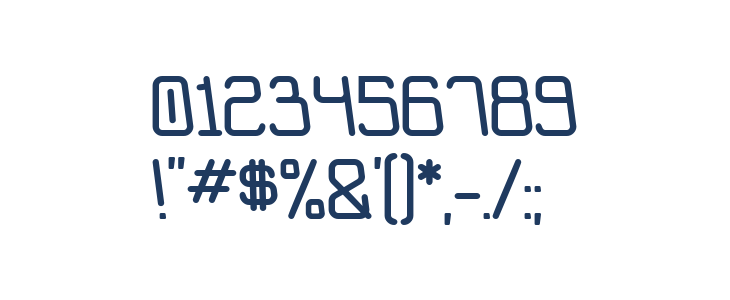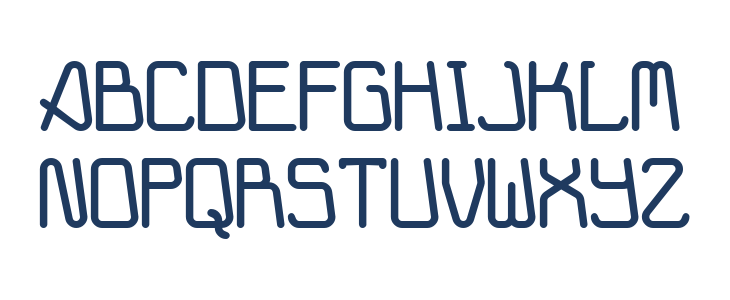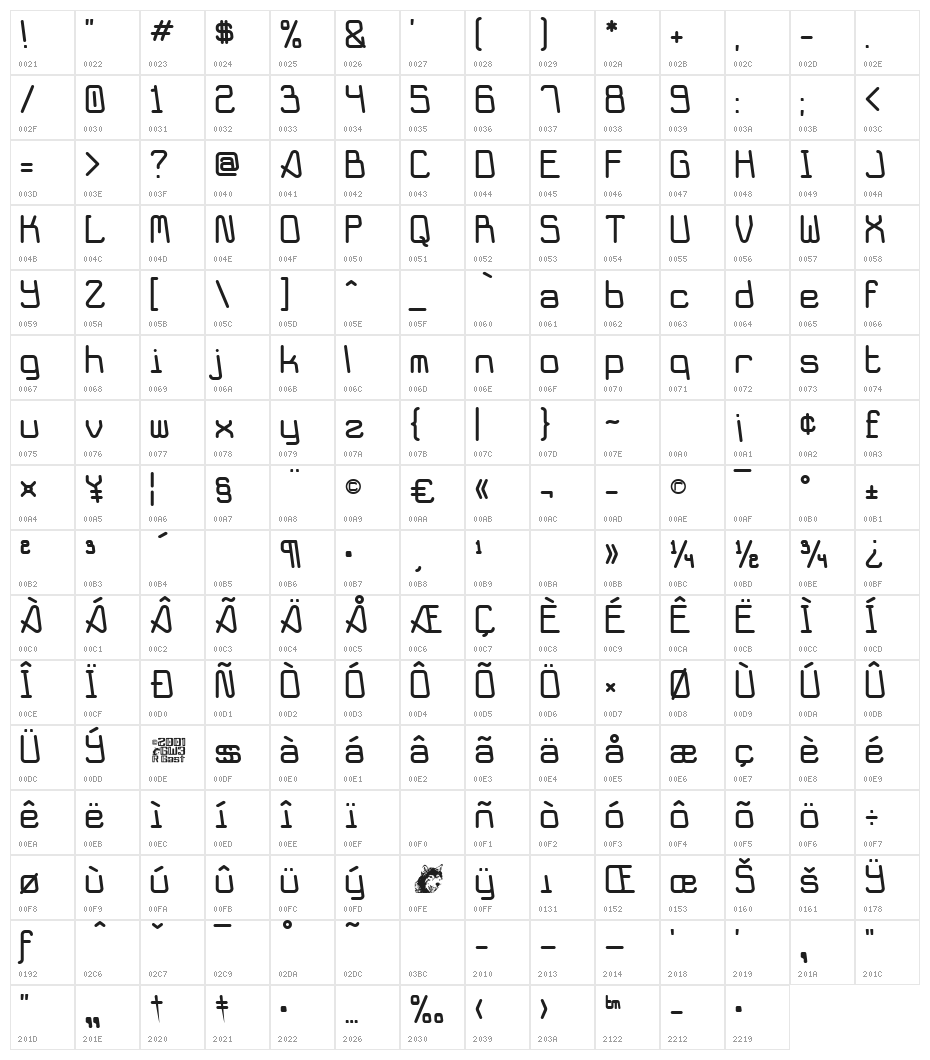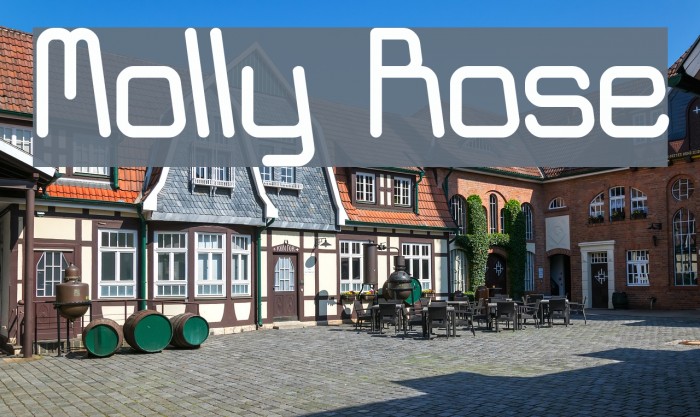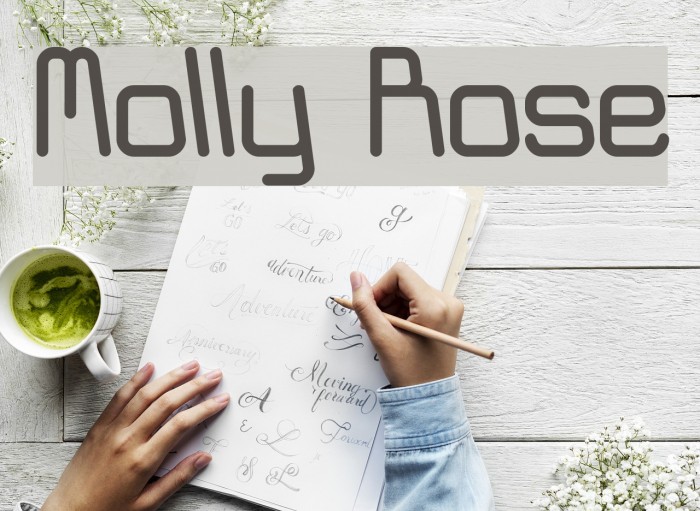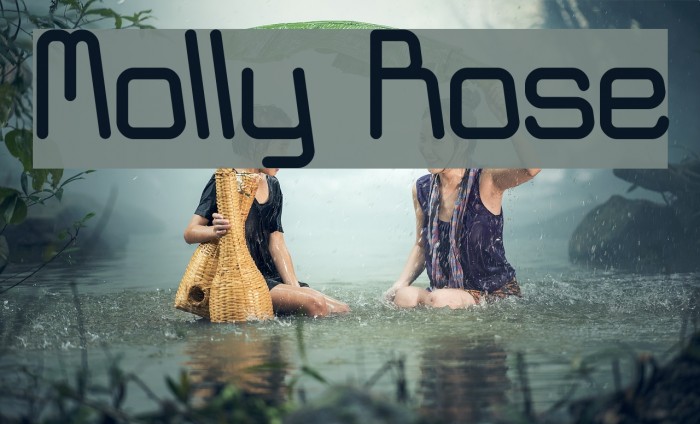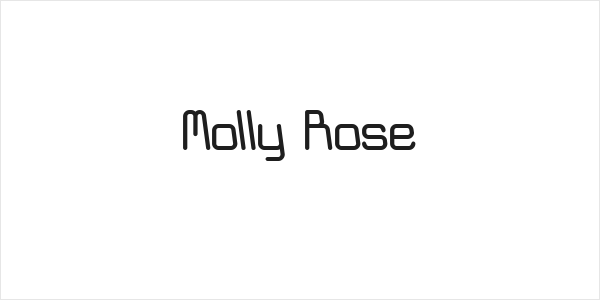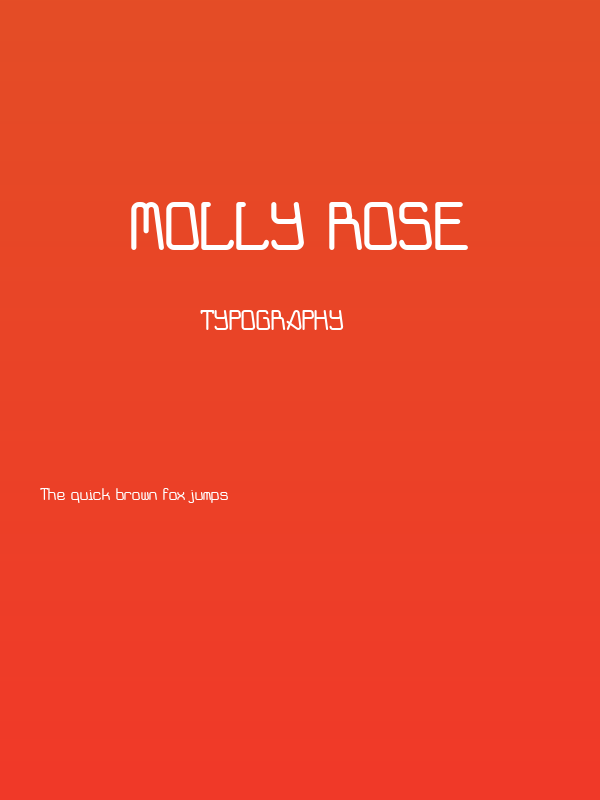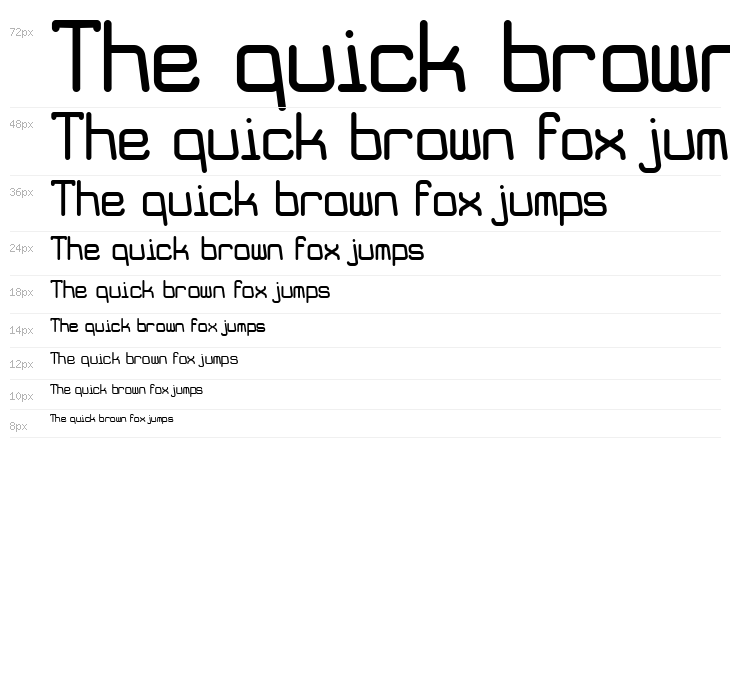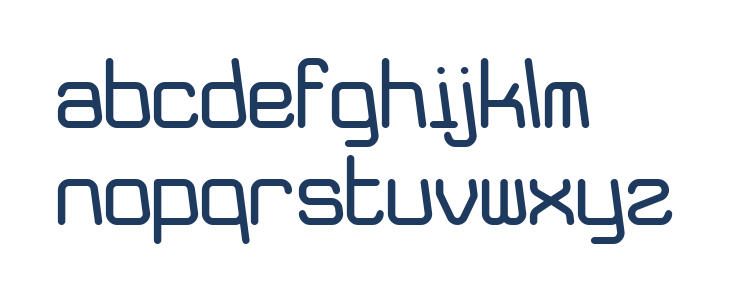
Molly Rose Font
Molly Rose Description
This font features a modern, geometric design with rounded edges and a monospaced structure. Each character is crafted with consistent stroke thickness, giving it a uniform appearance. The uppercase and lowercase letters maintain a similar height, enhancing readability and creating a cohesive look. The numerals and special characters are designed to match the overall style, with a playful yet structured feel. The font's unique style makes it suitable for various creative applications, offering a contemporary and clean aesthetic.
| Use Case | Headlines, Digital interfaces, Coding |
| Proposed Projects | Ideal for digital interfaces, coding environments, modern branding, and creative design projects. |